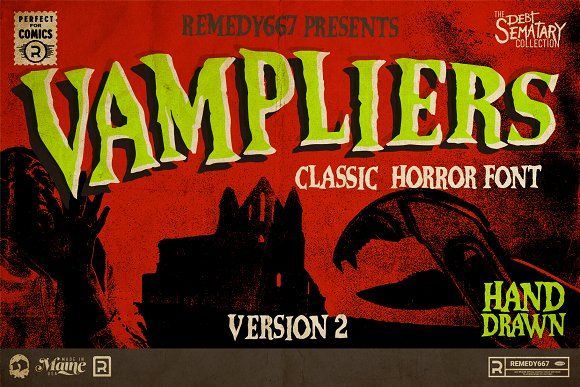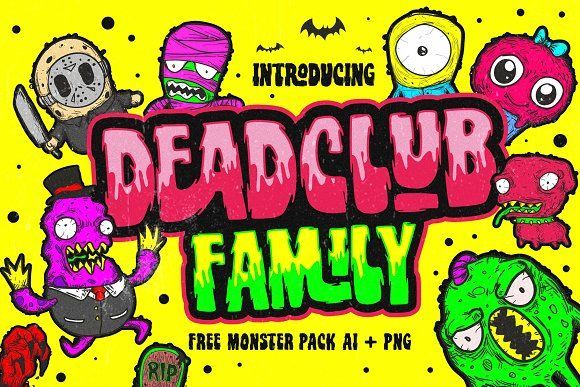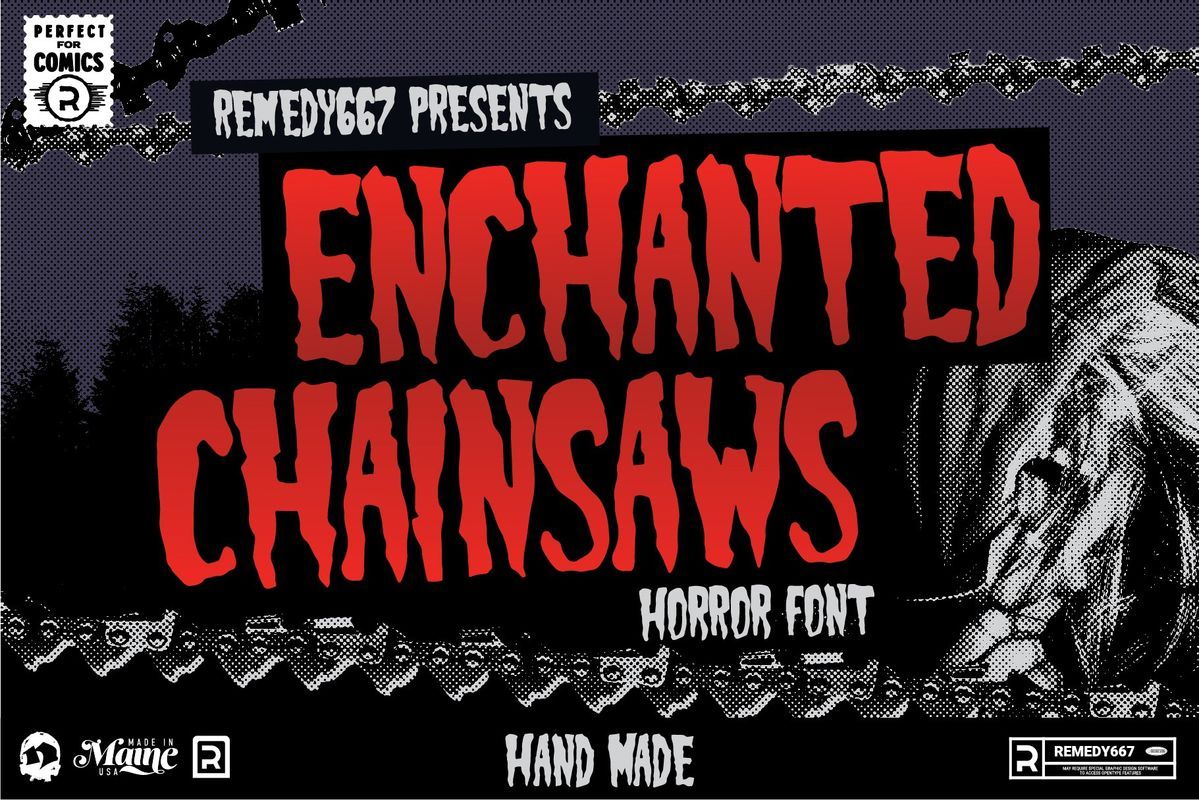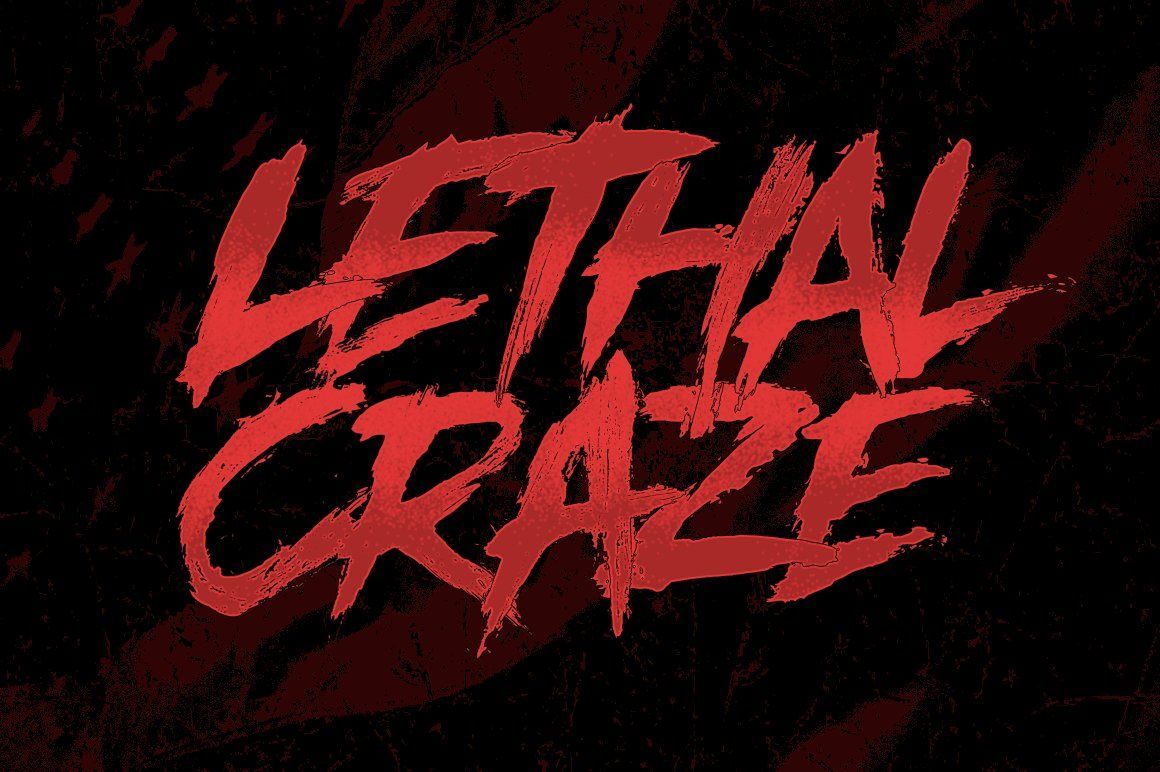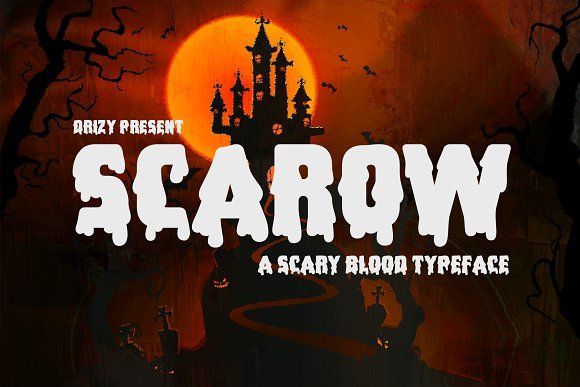
Ultimate Font Zombie that Will Make Your Designs Deadly Good
What is the first thing you think of when you hear about font zombies? Are you thinking of dripping letters with cracked effects and nail claw like points?
That’s totally correct. Zombie fonts often come with uneven letterforms and decaying appearance to resonate if something is in danger. You may also be familiar with them while seeing horror movie posters, apocalypse book covers, and horror YouTube thumbnails.
And, if by any chance you are also considering creating a design with a similar theme, this font is absolutely the right choice. Here, we’ve listed ultimate fonts that are best used for horror themes alike and we assure you that they will make your designs deadly good.
Dive more to see the whole recommendation.
10 Ultimate & Deadly Good Font Zombie
From playful to gory and creepy vibes, these following recommendations cover anything that you may look for. Go explore them now!
⦁ Nightmare
Nightmare is a duo font from HansCo Studio (available for dingbats and display) that combines horror creepiness with fun spookiness. It features general visual traits of zombie fonts, such as jagged edges and dark vibes.
But, it also adds playful irregular letters to make the design less scary. Given the characteristics, Nightmare is suited to use for both zombie themed designs and playful Halloween events.
⦁ Zombik Typeface
Zombik Typeface is created by alit design features brush textures style to convey chaotic and horror vibe. The raw strokes direction adds tension and urgency to the designs.
But, depending on your design goals, it can appear seriously scary for horror projects, but also playfully fun for Halloween designs.
⦁ Lonesome Zombies
Lonesome Zombies by Gassstype suggests a rough energy of paint brush strokes, creating a sense of distressed effect.
It also has a versatile tone, meaning you can use it for almost any horror theme, including Halloween posters, apparel designs, creepy game logos, and even spooky YouTube thumbnails.
⦁ Night Driver
Night Driver is designed as a display font by HansCo Studio with a messy brush stroke style, showcasing imperfect paint areas to radiate chaotic situations. It is giving a bloody warning impression which intensifies the horror tension.
Just like the other font zombie from HansCo Studio, Night Driver also signals a versatile tone. So, you can easily style them for digital contents, posters, or merch.
⦁ Vampliers
With colorful and fancy touches, Remedy667 can make your design appear scary, but also lively fun. It has a cartoonish horror style, making it suitable for children-friendly Halloween content.
Otherwise, it is also perfect for playful horror game logos and merch. As it is categorized as a layered font, Remedy667 is often used for creating dynamic animated intros as well.
⦁ Scarow
Just as you can expect from its name, Scarow displays dripping effects visualizing bleeding letters. Such effects instantly suggest horror and are easily grabbing attention when used in posters or digital contents.
⦁ Enchanted Chainsaws
Enchanted Chainsaws has similar bleeding effects like Scarow. The dripping elements draw out from the letters, showcasing as if it’s real fresh blood. Although the visual feels intense, yet Freshty Blood is playfully fun enough for Halloween projects.
⦁ Deadclub
Deadclub includes into the category of font zombie that blends horror undertones with cartoonish effects, making it feels more playful than fully creepy.
This is why Melt is still considered appropriate for children’s contents and sometimes, also used for humorous horror graphics.
⦁ Lethal Craze
Lethal Craze features a liquid melt effect designed to add extra terrors for your zombie apocalypse design projects. Even with dripping effects, Lethal Craze still retains readability across different formats because of its thick and bold characters.
⦁ Wild Wolf Font
Combining natural brush with horror and zombie themes, Deep gives off an intense vintage horror vibe. It is absolutely suitable for designs that highlight zombie apocalypse energy with nostalgic touches.
Wild Wolf is also highly flexible to use in varying design moods. It can be customized with different color palettes to create a distinctive mood, whether it’s serious, playful, or creepy.
Effects & Color Palettes for Styling Zombie Fonts
Color palettes and effects play important roles to evoke a sense of creepy, gory, or even fun vibes to your horror themed designs.